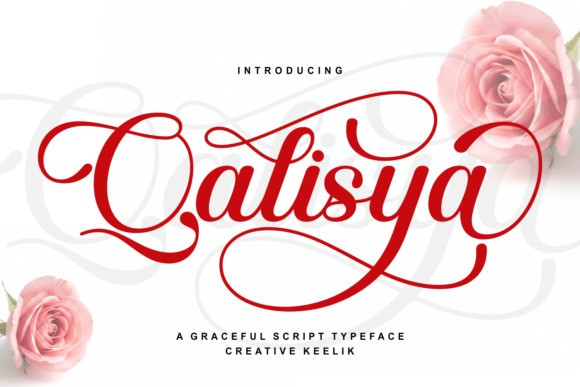
Qalisya Font
Designer: Creative Keelik
Qalisya Font a world of high fashion and romantic allure with the Qalisya font. This graceful script typeface is a stunning display of calligraphic mastery, featuring elongated, sweeping flourishes and delicate, thin-to-thick transitions.
The Qalisya font is designed to evoke a sense of movement and luxury, mimicking the effortless stroke of a master calligrapher’s pen. It is a typeface that breathes “expensive,” making it the crown jewel for any project that requires a touch of sophistication, romance, and high-end beauty.
The Qalisya typeface is a specialist in “the big moment.” It is the definitive choice for luxury wedding invitations, high-end cosmetic branding, and premium event signage. Because of its intricate flourishes and wide horizontal presence, the Qalisya font works best as a display face where it can have plenty of room to breathe.
Pair it with a classic, high-contrast serif for a timeless “Vogue” aesthetic, or let it stand alone against a minimalist backdrop to highlight its artistic complexity. From logo designs for luxury spas to elegant wine labels and fashion editorial titles, this font turns every word into a work of art.